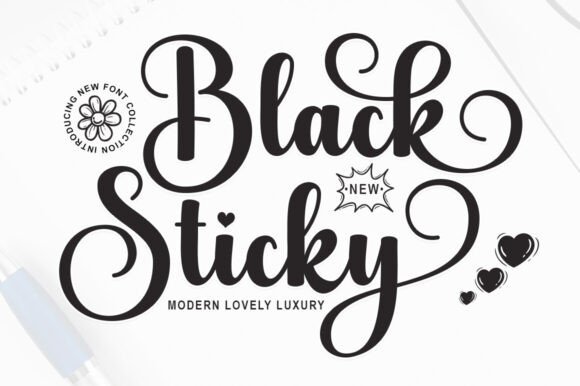
Unleashing the Power of Black Sticky Font: Elevate Your Design to New Heights
In the realm of typography, few fonts have managed to capture the essence of classic calligraphy while exuding a modern charm. Black Sticky font is one such remarkable script font that has been turning heads with its unique blend of elegance and sophistication. Imbued with a blend of charm and elegance, Black Sticky is a striking script font that stands as a modish tribute to the timeless art of classic calligraphy.
What Makes Black Sticky Font Stand Out?
The font’s unique style accentuates any design project, uplifting branding efforts, alluring titles, romantic wedding designs, sophisticated invitations, captivating signs, professional logos, and tasteful labels to a new sphere of design excellence. With Black Sticky, you can add a touch of luxury and refinement to your designs, setting them apart from the rest.
- Unique and Eye-catching: Black Sticky’s distinctive style is sure to grab attention and leave a lasting impression.
- Elegant and Sophisticated: The font’s classic calligraphy roots bring a sense of refinement and poise to any design.
- Versatile: Black Sticky can be used across various design projects, from branding and advertising to wedding designs and invitations.
Endless Design Possibilities with Black Sticky Font
Black Sticky script font can be used to transform your design vision into a visual masterpiece. Here are some design applications where Black Sticky truly shines:
- Branding and Logo Design: Create a lasting impression with a professional logo that exudes elegance and sophistication. Black Sticky’s unique style ensures your brand stands out from the competition.
- Wedding Designs and Invitations: Add a touch of romance and luxury to your wedding designs and invitations. Black Sticky’s classic calligraphy roots make it perfect for creating beautiful and memorable wedding materials.
- Advertising and Marketing: Elevate your advertising and marketing efforts with eye-catching titles and captions. Black Sticky’s distinctive style is sure to grab attention and engage your target audience.
- Signage and Display: Create captivating signs and displays that showcase your message in style. Black Sticky’s elegant and sophisticated design ensures your message is conveyed with poise and refinement.
Tips and Tricks for Using Black Sticky Font Effectively
To get the most out of Black Sticky font, here are some tips and tricks to keep in mind:
- Pair with contrasting fonts: Combine Black Sticky with a contrasting font to create visual interest and hierarchy in your design.
- Experiment with colors: Try pairing Black Sticky with different colors to create a unique and eye-catching effect.
- Pay attention to spacing: Ensure adequate spacing between letters and words to maintain the font’s elegance and sophistication.
Draw Inspiration from Black Sticky Font Examples
Seeing Black Sticky in action can help spark your creativity and inspire new design ideas. Here are some examples of how Black Sticky can be used in different design projects:
In conclusion, Black Sticky font is a powerful design tool that can elevate your design projects to new heights. With its unique blend of charm and elegance, Black Sticky is the perfect choice for designers looking to add a touch of luxury and refinement to their work. Whether you’re working on branding, advertising, wedding designs, or signage, Black Sticky script font is sure to transform your design vision into a visual masterpiece.